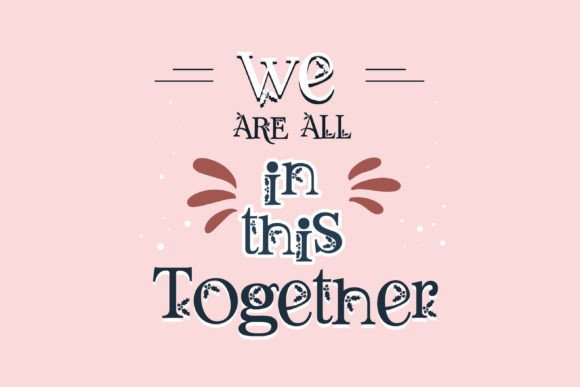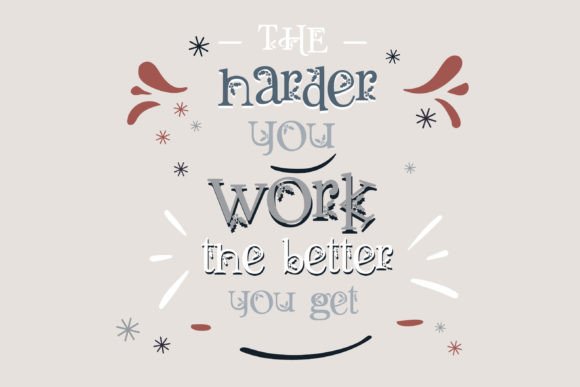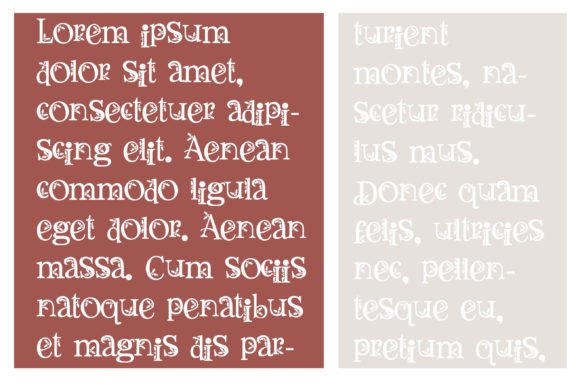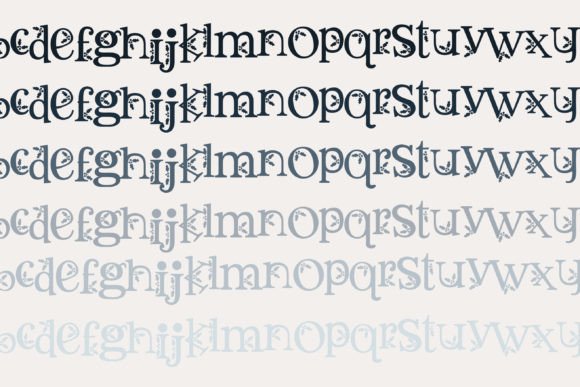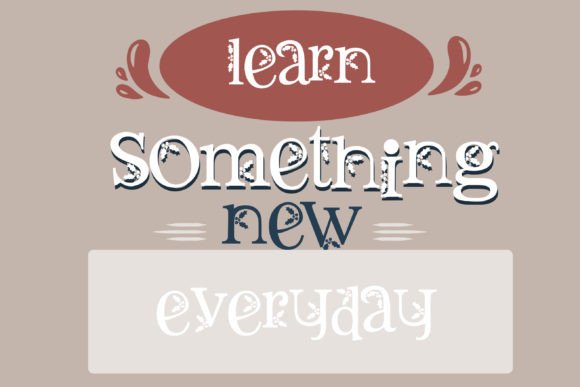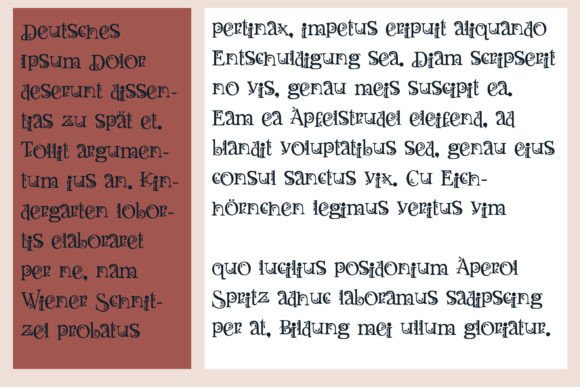
Introducing Christmas Eve Font: The Perfect Addition to Your Holiday Designs
Are you looking for a font that captures the magic and whimsy of the holiday season? Look no further than Christmas Eve Font, a cute and adorable decorative font that’s sure to brighten up each of your designs. With its unique blend of playfulness and charm, this font is perfect for designers and crafters who want to add a touch of festive flair to their projects.
What Makes Christmas Eve Font So Special?
Christmas Eve Font is a one-of-a-kind decorative font that’s designed to bring a smile to your face. Its whimsical and quirky style is reminiscent of traditional holiday decorations, with a modern twist that makes it perfect for contemporary designs. Whether you’re creating holiday cards, gift tags, or social media graphics, this font is sure to add a touch of festive fun to your projects.
Key Features of Christmas Eve Font
- Cute and Adorable: Christmas Eve Font is a sweet and charming font that’s sure to delight your audience.
- Whimsical and Quirky: With its unique blend of playfulness and charm, this font is perfect for designers who want to add a touch of personality to their designs.
- Versatile: This font can be used in a variety of design projects, from holiday cards and gift tags to social media graphics and more.
Tips for Getting the Most Out of Christmas Eve Font
Here are a few tips for getting the most out of Christmas Eve Font:
- Experiment with Different Sizes: Christmas Eve Font looks great in a variety of sizes, from small and delicate to large and bold.
- Pair it with Other Fonts: Try pairing Christmas Eve Font with other fonts to create a unique and eye-catching design.
- Add Some Color: Christmas Eve Font looks great in a variety of colors, from traditional holiday colors like red and green to more modern colors like pink and blue.
Why Designers and Crafters Love Christmas Eve Font
Designers and crafters love Christmas Eve Font for a variety of reasons. Here are a few:
- It’s Fun and Festive: Christmas Eve Font is the perfect way to add some festive fun to your designs.
- It’s Versatile: Christmas Eve Font can be used in a variety of design projects, from holiday cards to social media graphics.
If you’re looking for a font that captures the magic and whimsy of the holiday season, look no further than Christmas Eve Font. With its cute and adorable design, whimsical and quirky style, and ease of use, this font is perfect for designers and crafters who want to add a touch of festive flair to their projects. So why wait? Download Christmas Eve Font today and start creating your own holiday designs!